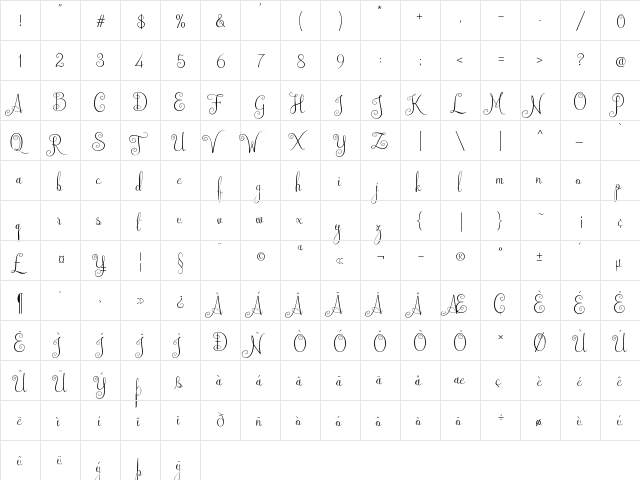
Australian Script Regular
| Foundry | darwinoo |
| Designer | darwinoo |
Design Context for Australian Script Typeface
Australian Script flows with the natural rhythm of handwritten lettering, making it ideal for designs that call for warmth and personal expression.
Font Pairing: Combine Australian Script with a simple geometric sans for maximum contrast — the tension between flowing curves and clean structure is a classic typographic pairing.
Pro Tip: Use Australian Script for short runs of text — names, titles, or taglines. Extended body copy in script faces tires the eye quickly.